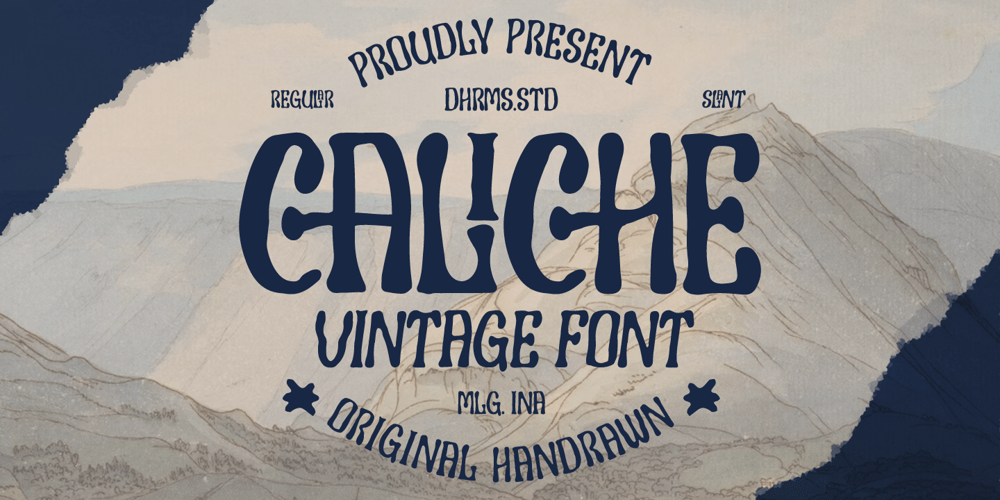
Caliche Font Family was designed by Ahmad Jamaludin and published by Ahmad Jamaludin. Caliche contains 2 styles and family package options. Say hello to CALICHE! The font that’s as vintage and handdrawn at the same time!CALICHE’s typeface is inspired by the rustic charm of vintage craftsmanship, infused with the laid-back vibes of a tropical summer. This font brings you not one, but two families to choose from: Regular and Slant, offering versatility for your design projects.Whether you’re aiming for a rugged look, modern vintage aesthetics, or the essence of summer, CALICHE has got you covered. It’s the perfect companion for all your graphic design needs, crafted with care to bring that unique touch to your creationsWhat’s Included? Caliche Main File Regular and Slant version Instructions (Access special characters, even in Cricut Design) Unique Letterforms Works on PC & Mac Simple Installations Accessible in Adobe Illustrator, Adobe Photoshop, Microsoft Word even Canva! PUA Encoded Characters. Fully accessible without additional design software. Language Support: Danish, English, Estonian, Filipino, Finnish, French, Friulian, Galician, German, Gusii, Indonesian, Irish, Italian, Luxembourgish, Norwegian BokmÃ¥l, Norwegian Nynorsk, Nyankole, Oromo, Portuguese, Romansh, Rombo, Spanish, Swedish, Swiss-German, Uzbek (Latin)